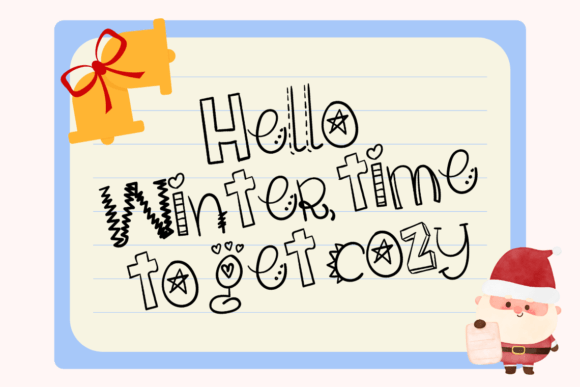
Happy December Font
Introducing Happy December font! With its delightful handwritten style and versatile alphabet graphics, this font is tailor-made for capturing the magic of the holiday season. Whether you’re creating Christmas cards, crafting winter-themed designs, seeking inspiration, or simply celebrating the festive spirit, Happy December font is the perfect choice. Its whimsical charm and festive flair make it ideal for spreading holiday cheer in all your projects. Embrace the joy of the season with Happy December font and infuse your designs with warmth, happiness, and a touch of holiday magic!